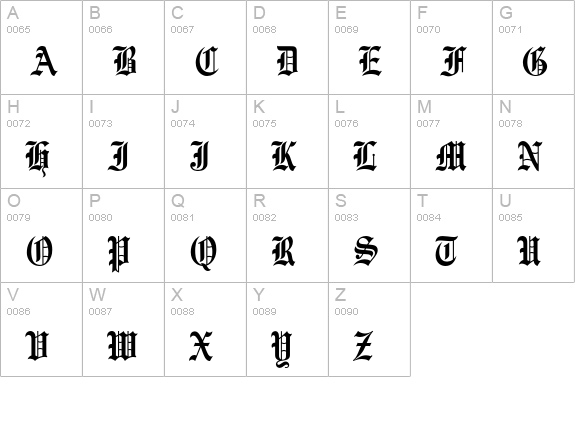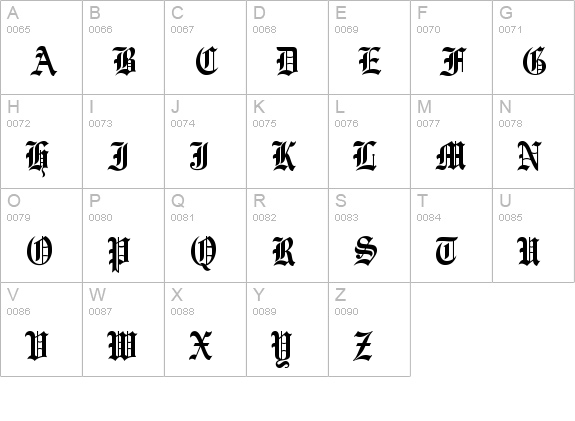
Engravers Old English Regular Font Details
Engravers Old English Regular is the standard, neutral variant in the Engravers typeface family \xE2\x80\x94 well suited to general body text, paragraphs, and standard typographic work.
Engravers Old English Regular font exudes timeless elegance and sophistication with its intricate, vintage-inspired letterforms. This classic typeface captures the essence of old-world charm and is perfect for adding a touch of sophistication to your design projects. The ornate details and distinctive flourishes of Engravers Old English Regular font make it ideal for creating invitations, logos, and other elegant designs. Best of all, Engravers Old English Regular font is available for free download at FontsMarket.com. Whether you are a designer looking to add a touch of vintage flair to your creations or a hobbyist eager to experiment with a new typeface, Engravers Old English Regular font is a versatile option that is sure to impress. Download it today and elevate your designs with the timeless beauty of Engravers Old English Regular font.